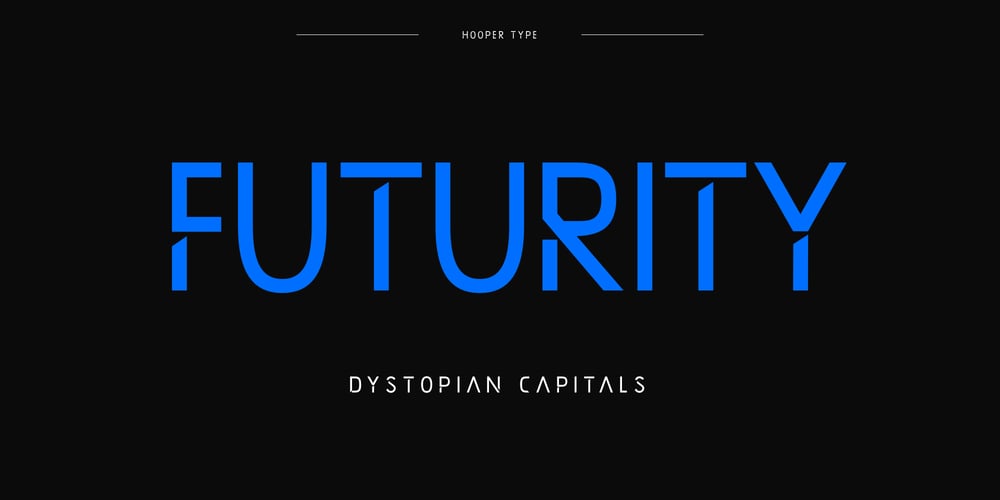
Futurity Font Family was designed by Christos Hooper and published by Hooper Type. Futurity contains 1 styles and family package options. A dystopian, CAPS only, title font used primarily for big type – so headlines in magazines, newspapers and articles. Though also amazing for posters and fdlyers where you want to grab attention. Futuristic values of a sans, which incorporate cut away elements that reflect reality – nothing’s perfect – or invoke shadows when reversed out. Uppercase gives you a hard-edged version, lowercase keys will give you a rounded CAPS version, softer on the eye. Enjoy!